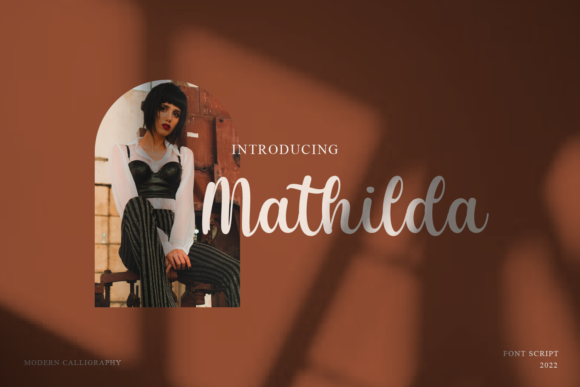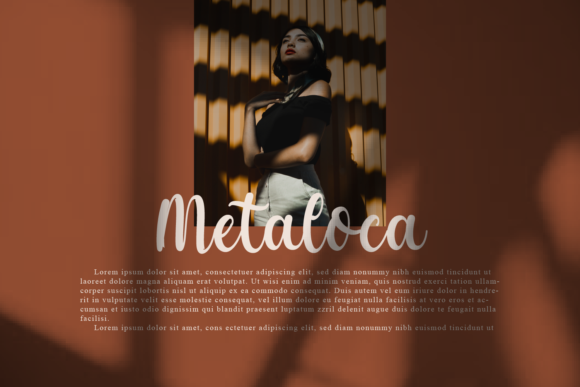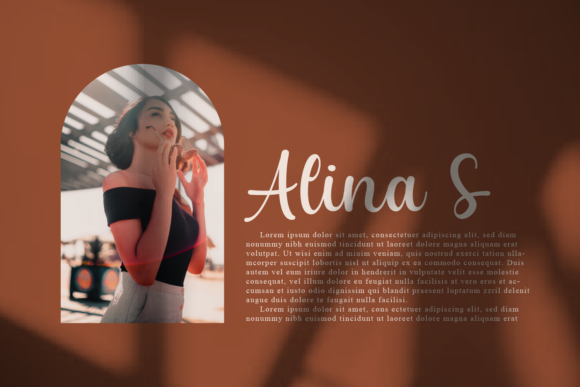
Mathilda Font
About Mathilda Font
Mathilda feels equally gorgeous and delicate. It looks beautiful on wedding invitations, thank you cards, quotes, greeting cards, logos, business cards and every other design which needs a customized touch.